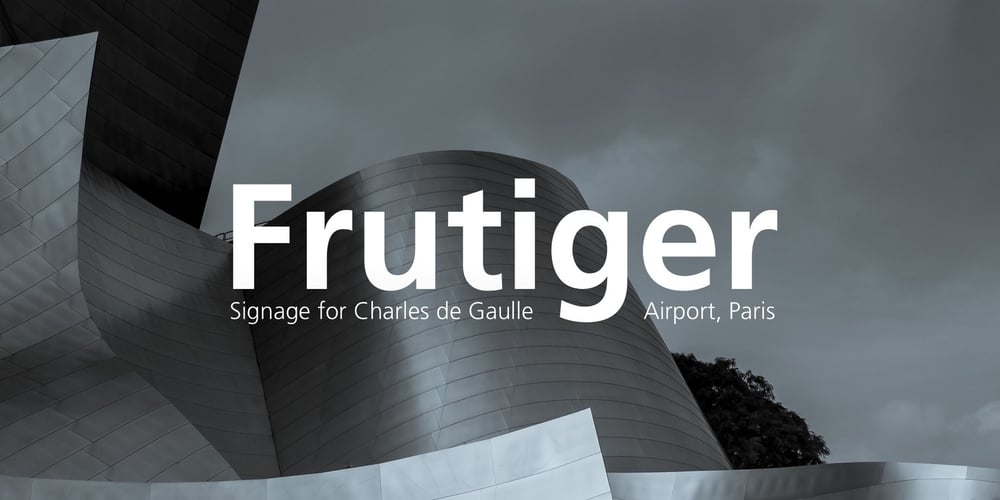
Frutiger Font Family was designed by Adrian Frutiger and published by Linotype. Frutiger contains 22 styles and family package options. In 1968, Adrian Frutiger was commissioned to develop a sign and directional system for the new Charles de Gaulle Airport in Paris. Though everyone thought he would want to use his successful Univers font family, Frutiger decided instead to make a new sans serif typeface that would be suitable for the specific legibility requirements of airport signage: easy recognition from the distances and angles of driving and walking. The resulting font was in accord with the modern architecture of the airport. In 1976, he expanded and completed the family for D. Stempel AG in conjunction with Linotype, and it was named Frutiger. The Frutiger™ family is neither strictly geometric nor humanistic in construction; its forms are designed so that each individual character is quickly and easily recognized. Such distinctness makes it good for signage and display work. Although it was originally intended for the large scale of an airport, the full family has a warmth and subtlety that have, in recent years, made it popular for the smaller scale of body text in magazines and booklets. The family has 14 weights and 14 companion fonts with Central European characters and accents. Another 14 Cyrillic companion fonts are available as well.See also the new revised version Frutiger Next from the Linotype Platinum Collection.Featured in: Best Fonts for Logos